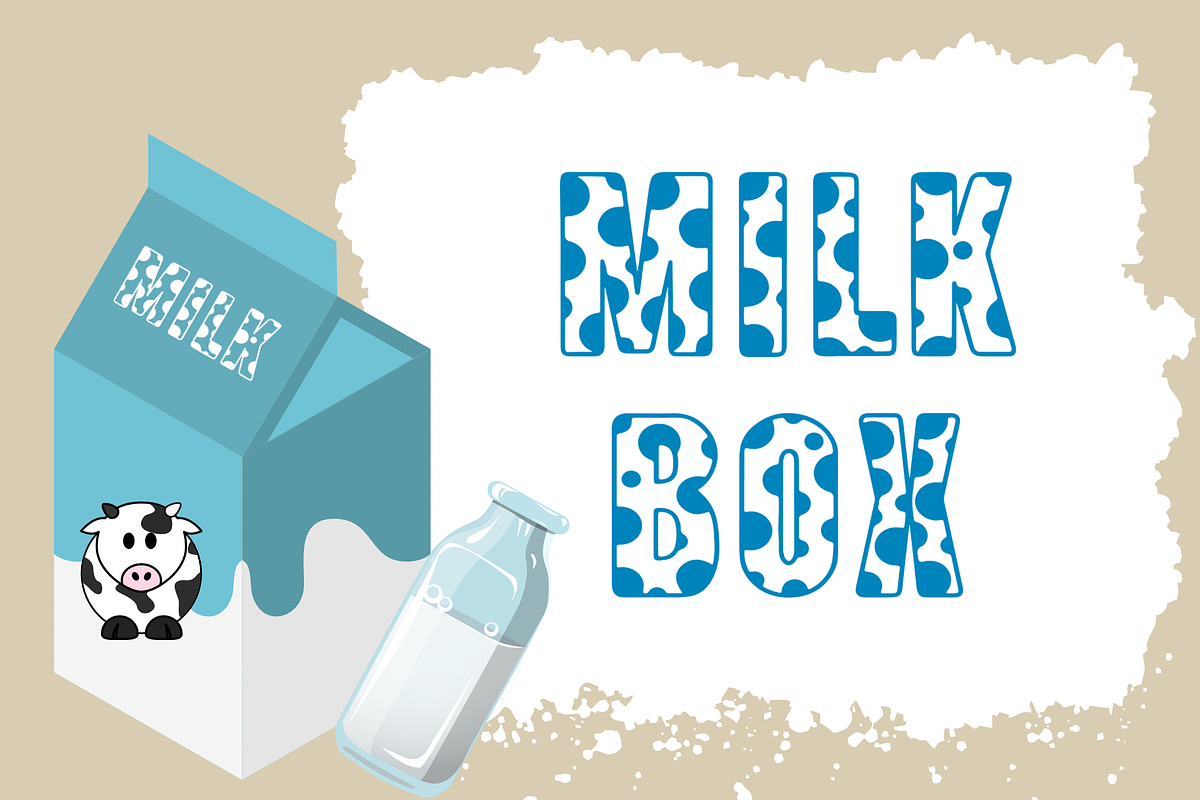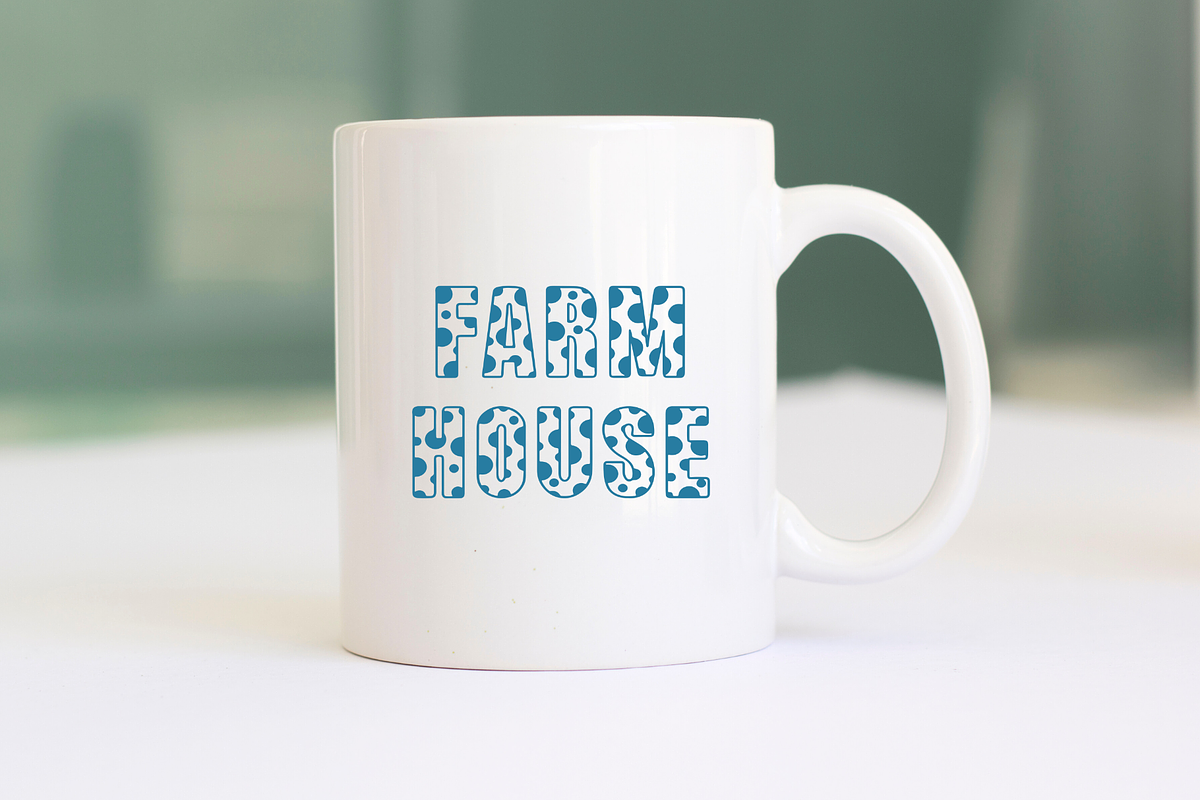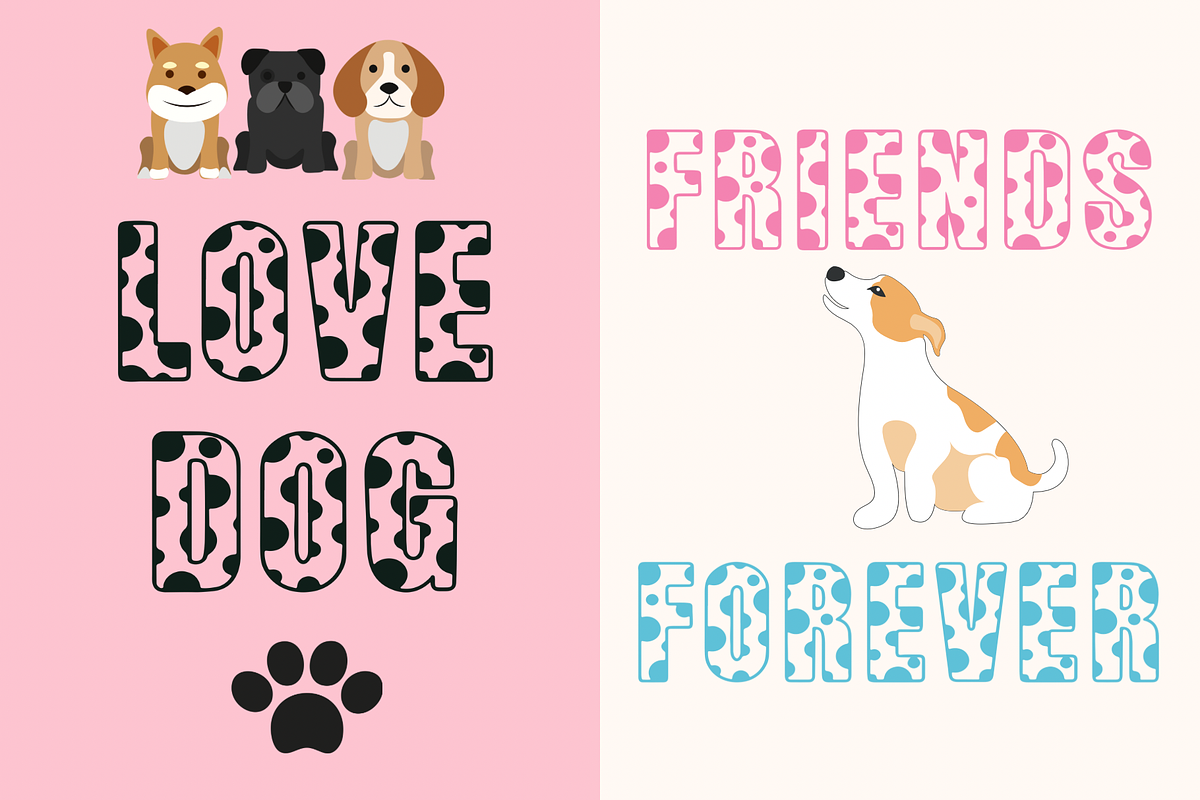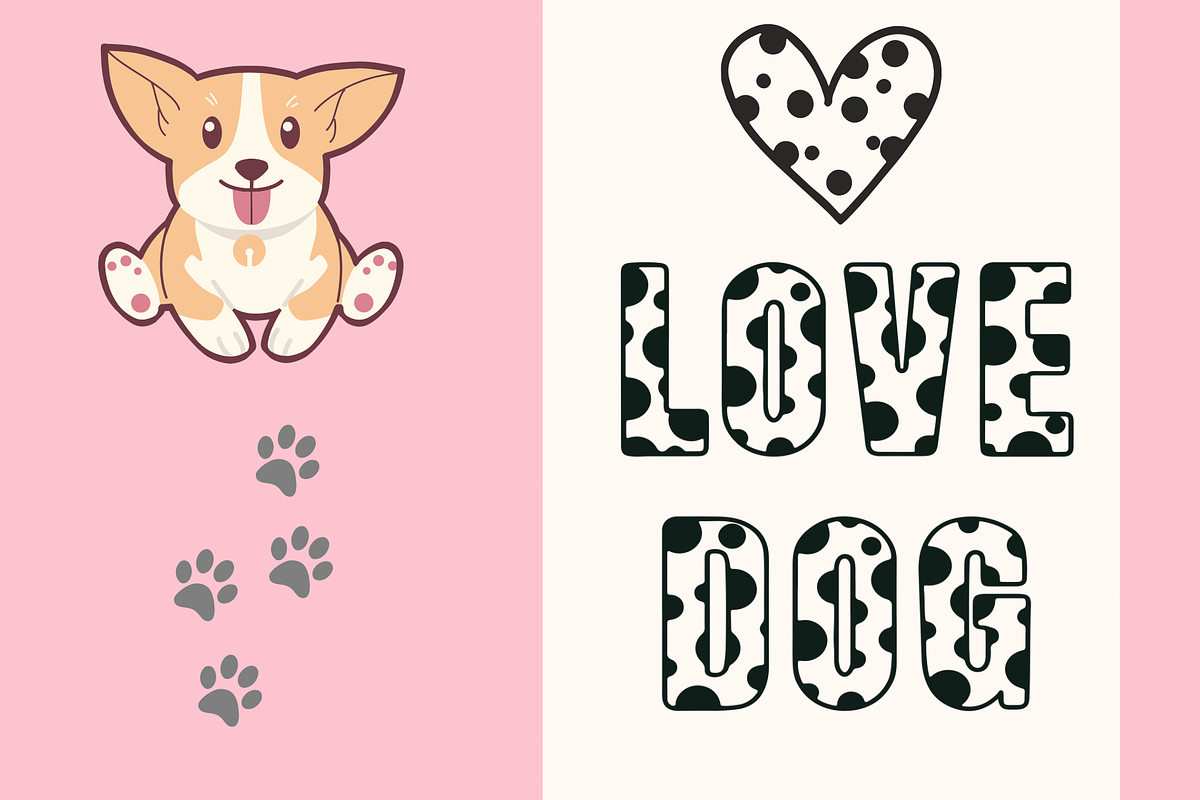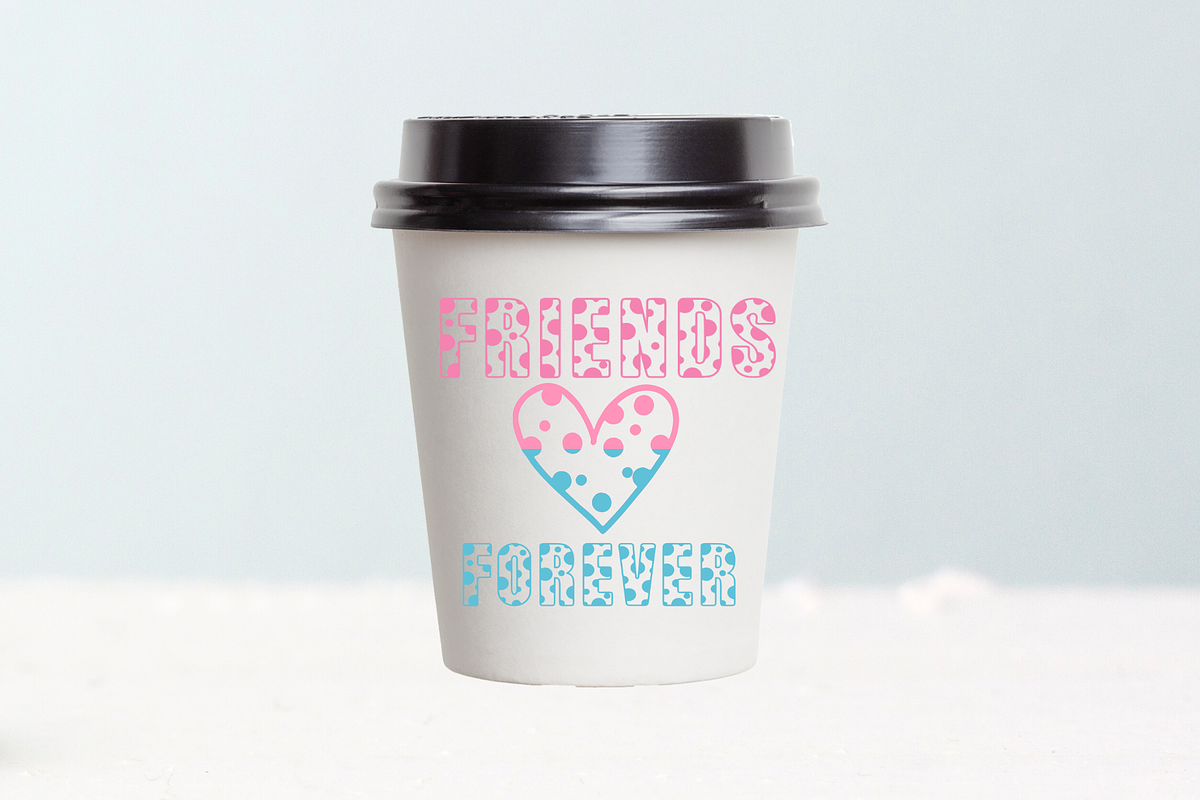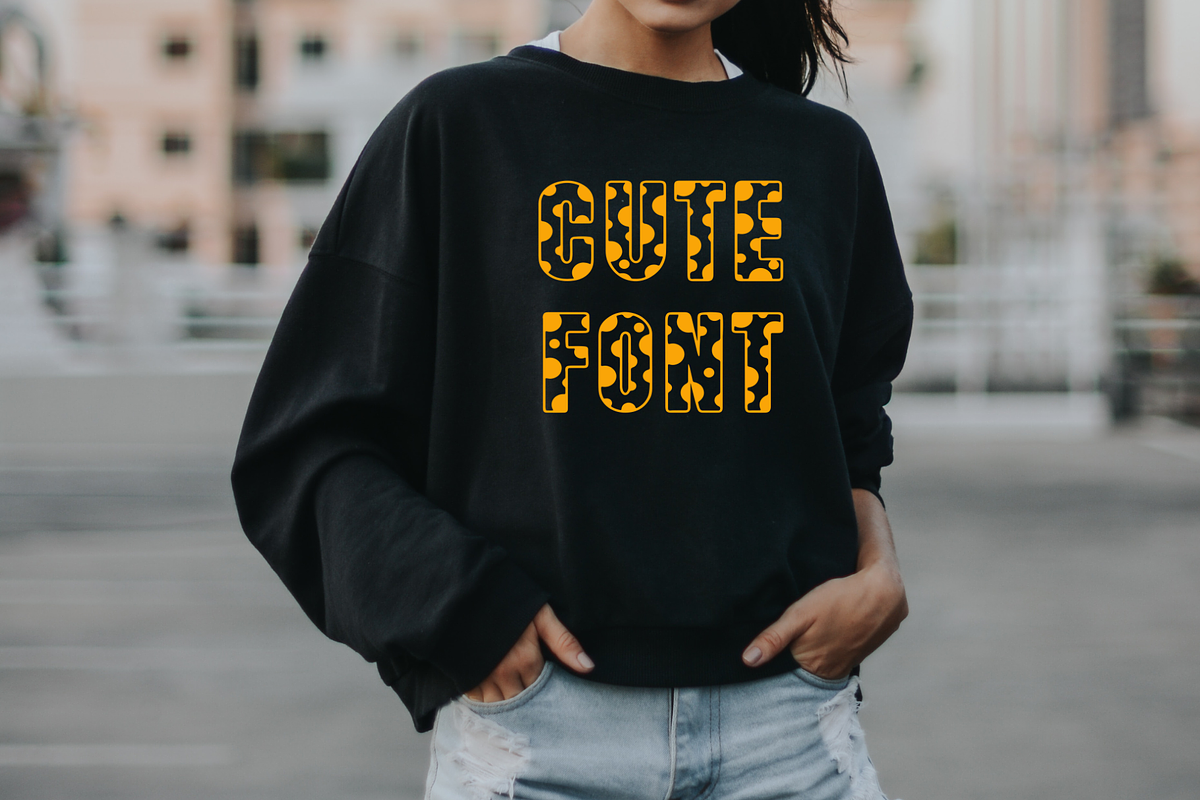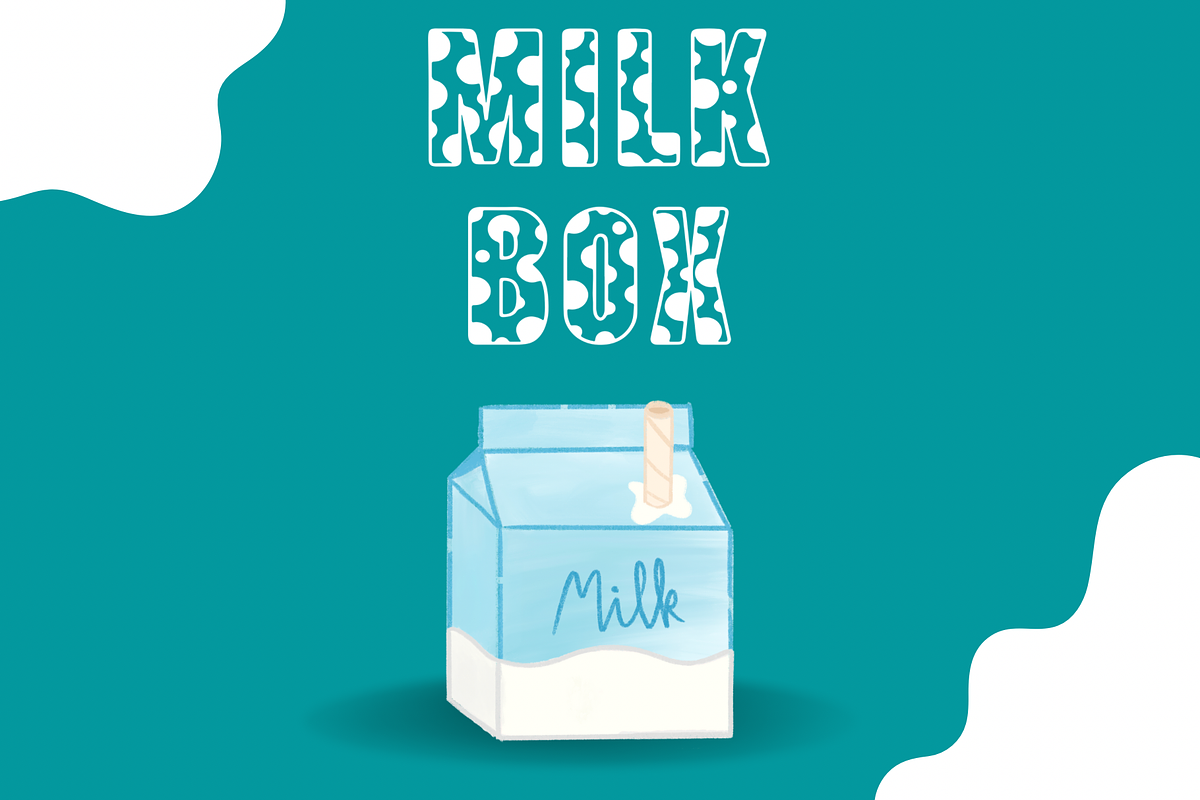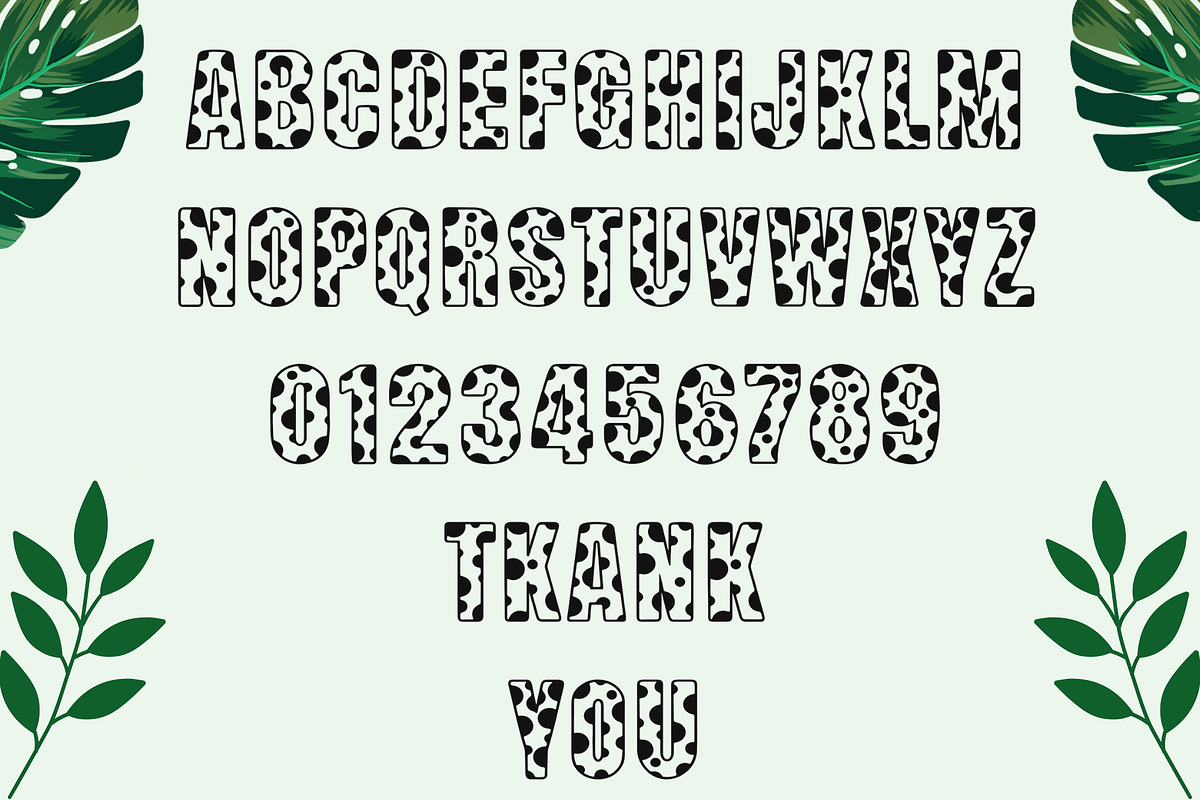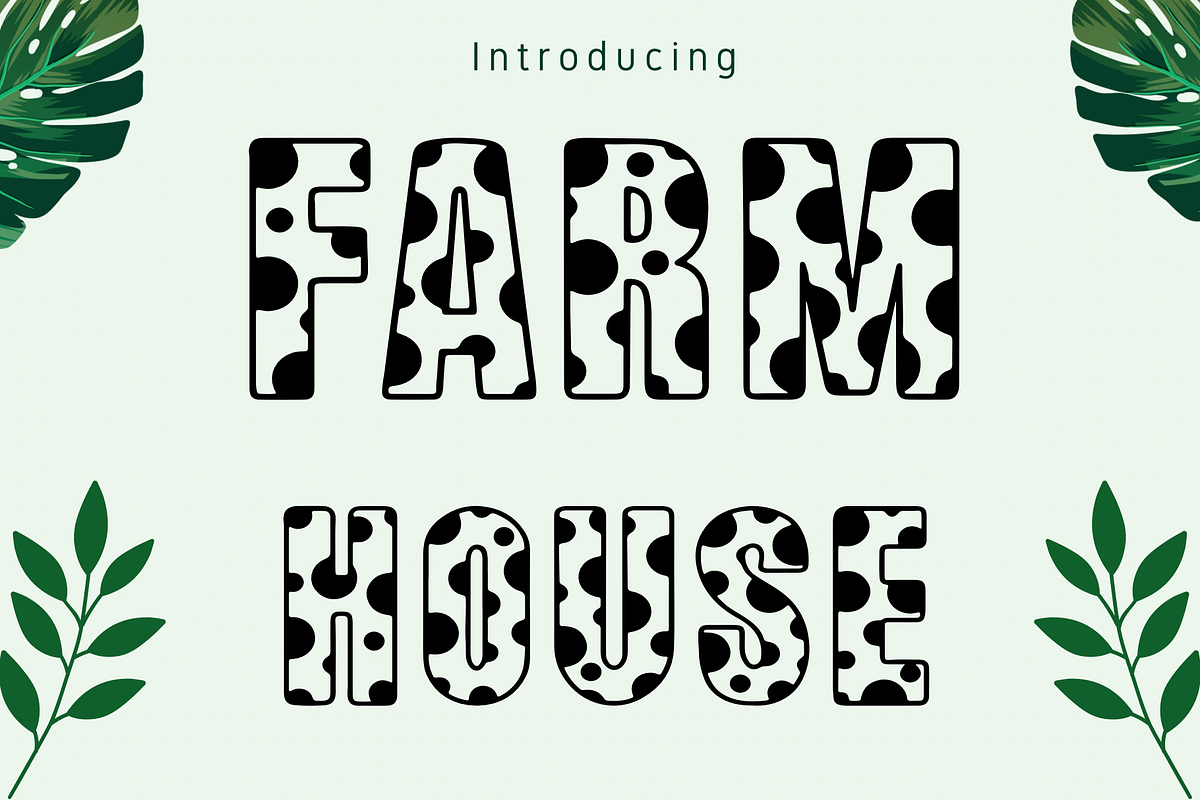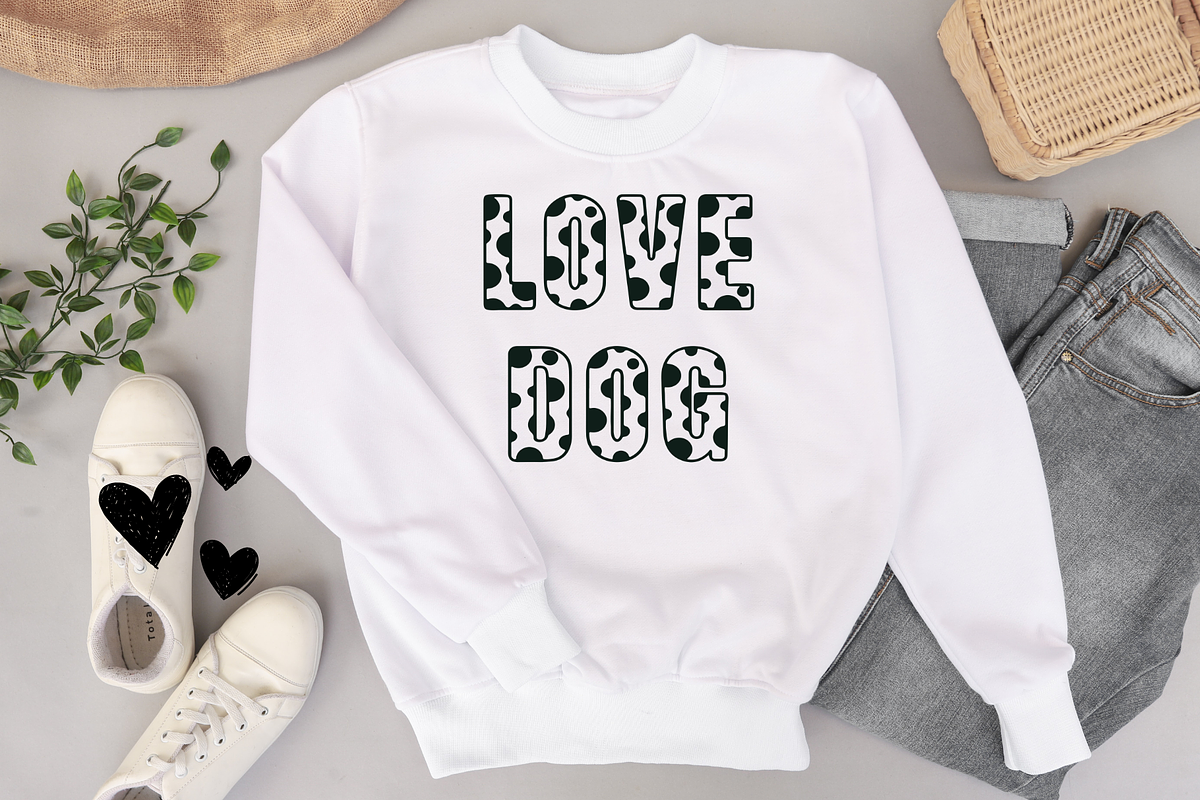
Farm House Font
Farm House is designed in a playful and adorable decorative font style. It would be awesome for your colorful child-relate projects, party decorations, or anything that needs a friendly touch. This font makes it easy to present every artwork!